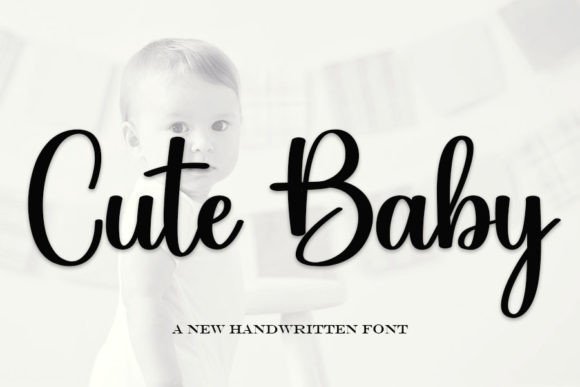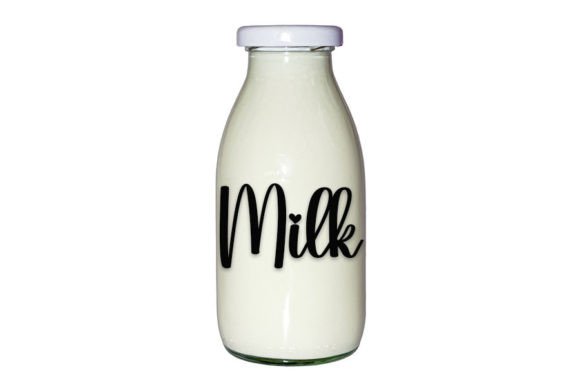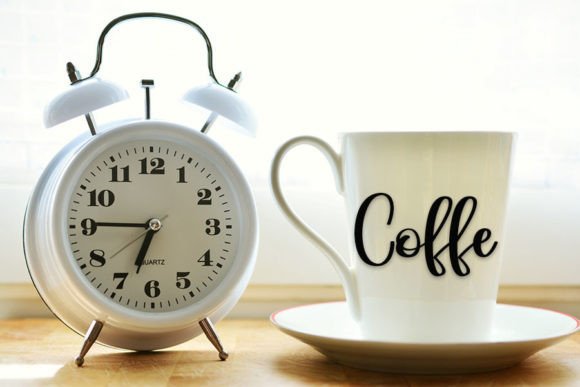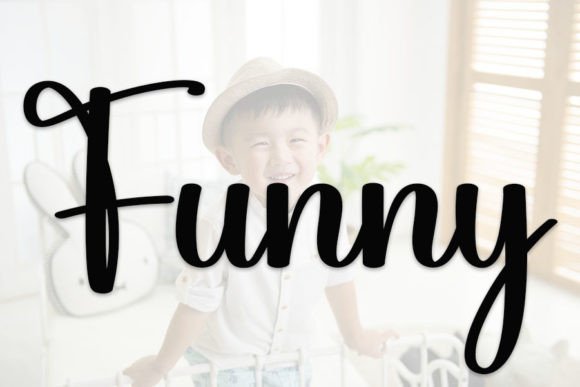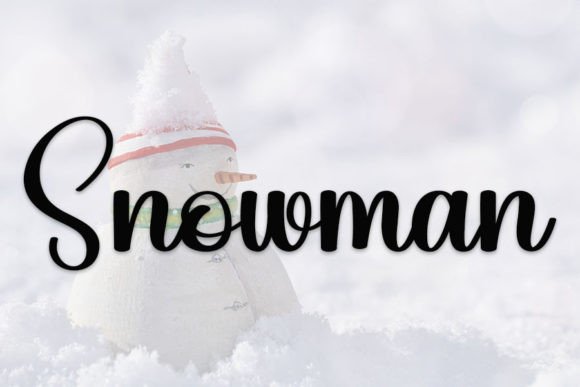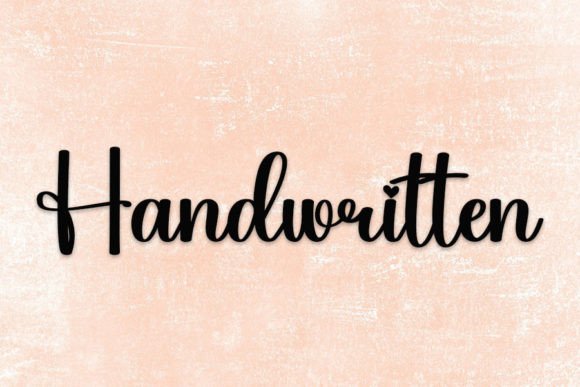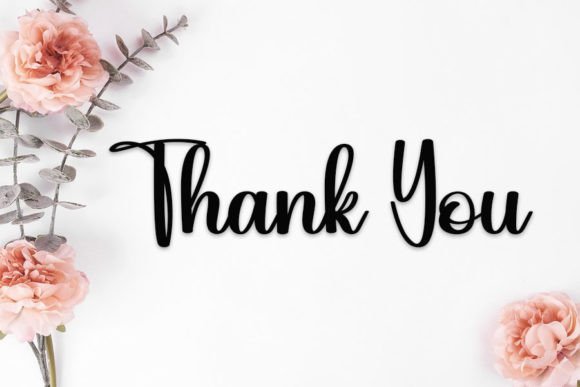
The Cutest Font for Your Next Design Project
Have you ever stared at a blank canvas, waiting for inspiration to strike? Maybe you’re brainstorming ideas for a nursery, planning a wedding, or simply creating a special gift for a loved one. Whatever your creative endeavor, you’re likely on the hunt for the perfect font to bring your vision to life.
Enter Cute Baby Font, a beautiful handwritten font that’s as elegant as it is playful. This charming font is designed to add a touch of whimsy and personality to your designs, making it the perfect choice for anything from baby announcements to wedding invitations.
As a designer, you know how hard it can be to find the right font to match your style and vision. That’s why Cute Baby Font is such a valuable addition to your toolkit – its timeless, distinct style will elevate your designs and leave a lasting impression on your audience.
Cute Baby Font Key Features
- Unique Characteristics: Features rounded edges, soft curves, and a playful feel, making it perfect for creating a cute and endearing atmosphere.
Cute Baby Font Review
I recently had the chance to work with the Cute Baby Font, and I have to say, it’s a mixed bag. On the one hand, there are some things that really work well: ✨ the font is undeniably cute and playful, making it perfect for any project that needs a touch of whimsy. ✨ the font is also highly legible, even at smaller sizes, which is a must for any font. ✨ the font’s versatility is also impressive, working well for a variety of applications, from children’s books to nursery decor.
However, there are some limitations to consider: ⚠️ the font’s cuteness can sometimes come across as overly saccharine or even annoying, depending on the context. ⚠️ the font’s lack of bold weights can make it difficult to use in situations where a bold font is needed. ⚠️ the font’s limited language support may also be a issue for some users.
Overall, I would say that the Cute Baby Font is a solid choice for projects that require a playful, whimsical feel. However, it’s not without its limitations, and users should be aware of these before making a decision.
Pros and Cons:
- ✨ Highly legible, even at smaller sizes
- ✨ Versatile, working well for a variety of applications
- ✨ Undeniably cute and playful
- ⚠️ Can be overly saccharine or annoying in some contexts
- ⚠️ Limited bold weights
- ⚠️ Limited language support
Tips for Getting the Most Out of Cute Baby Font
Use Cute Baby Font for creating playful and whimsical designs, such as:
- Baby product labels and packaging
- Infant and toddler product branding
Cute Baby Font is ideal for:
- Creating a nursery or children’s room theme
- Designing baby shower invitations and decorations
- Developing a brand identity for a children’s product or service